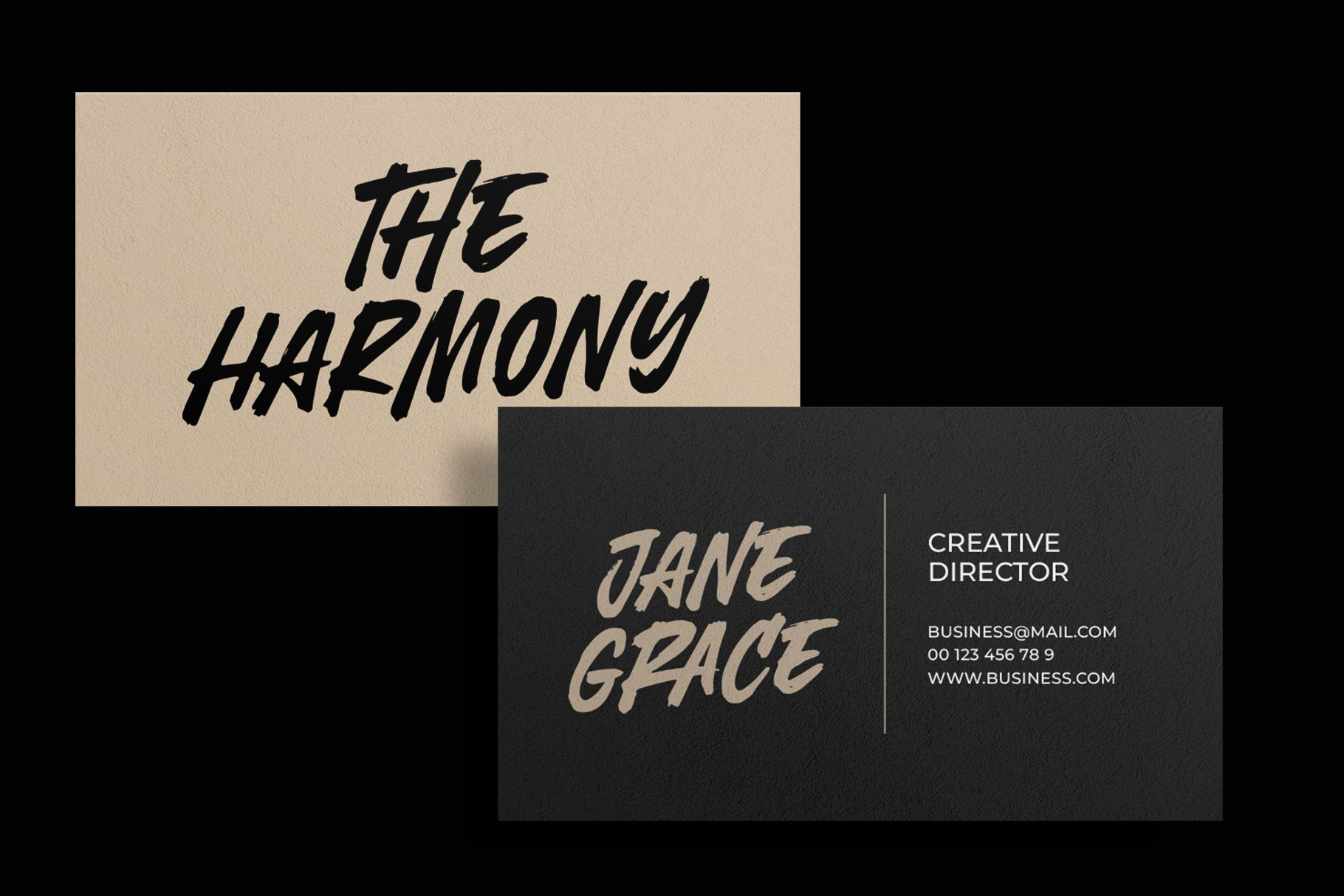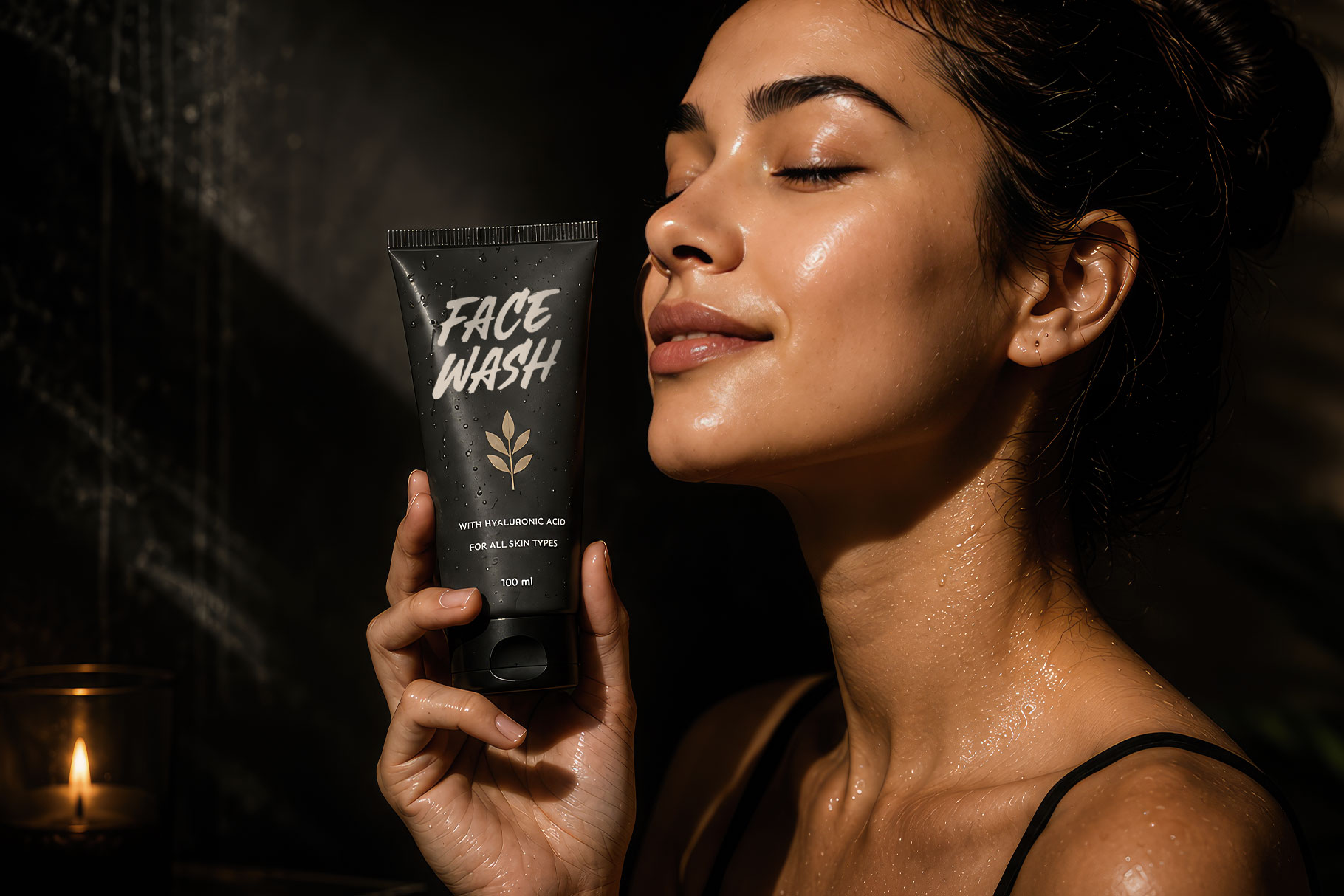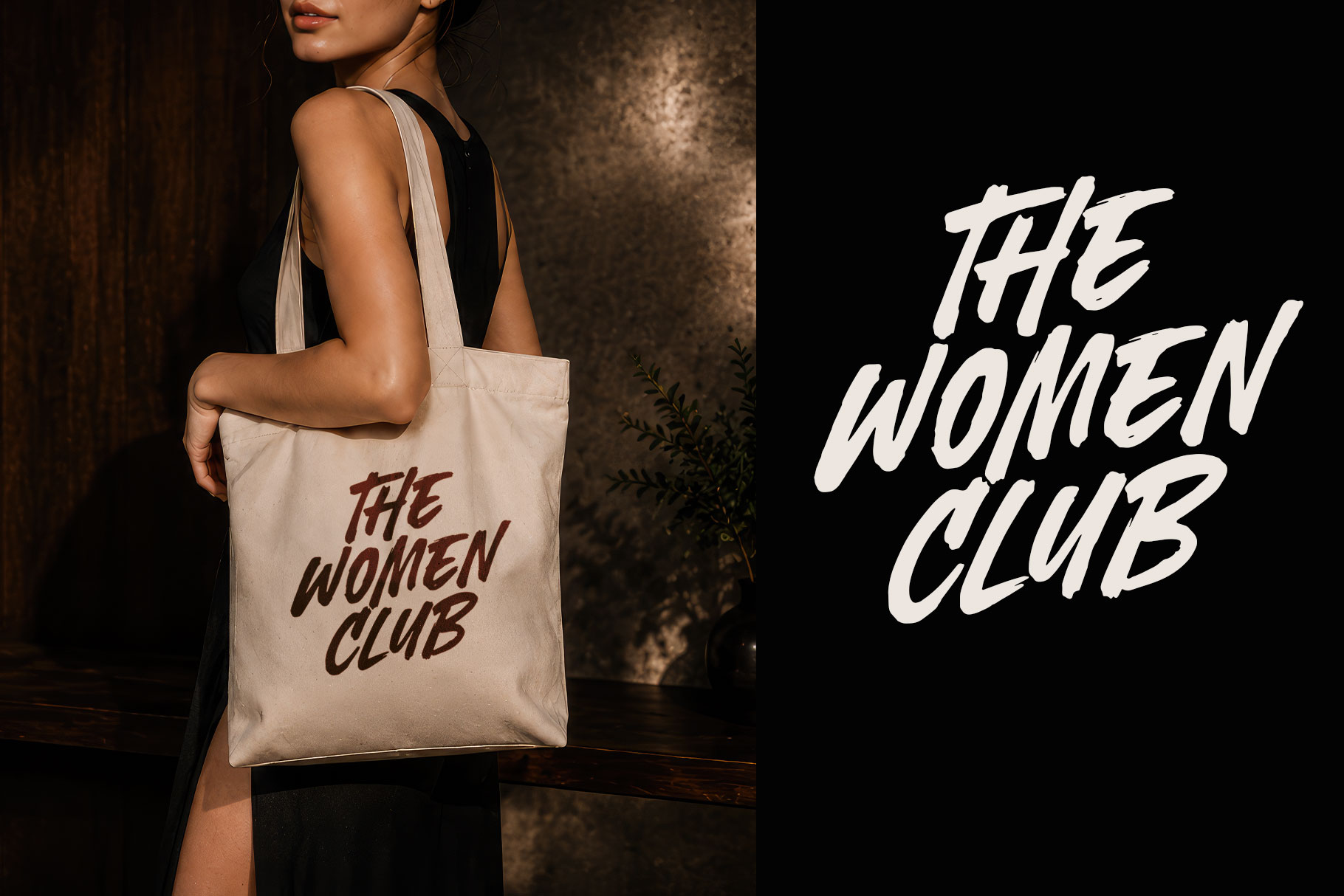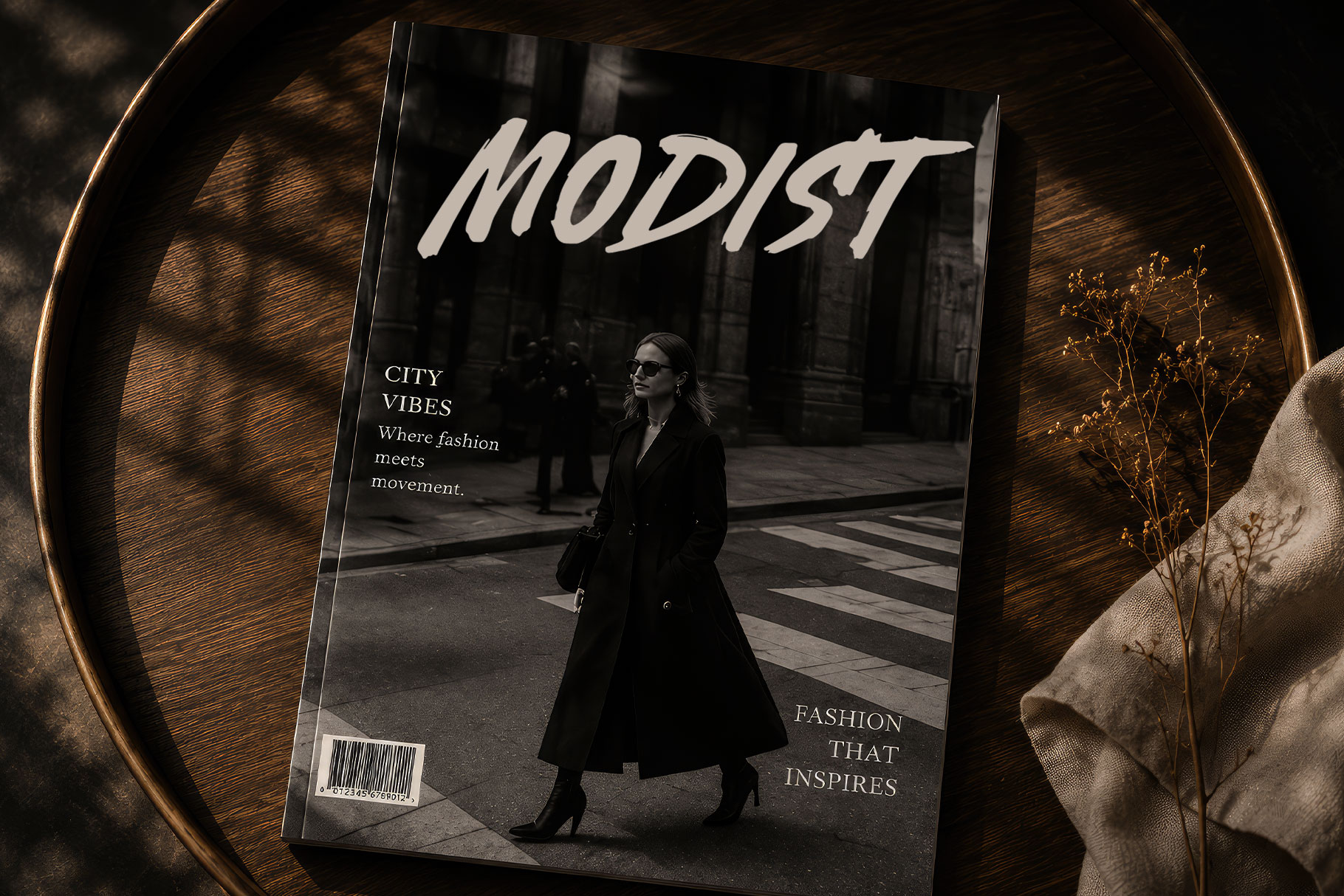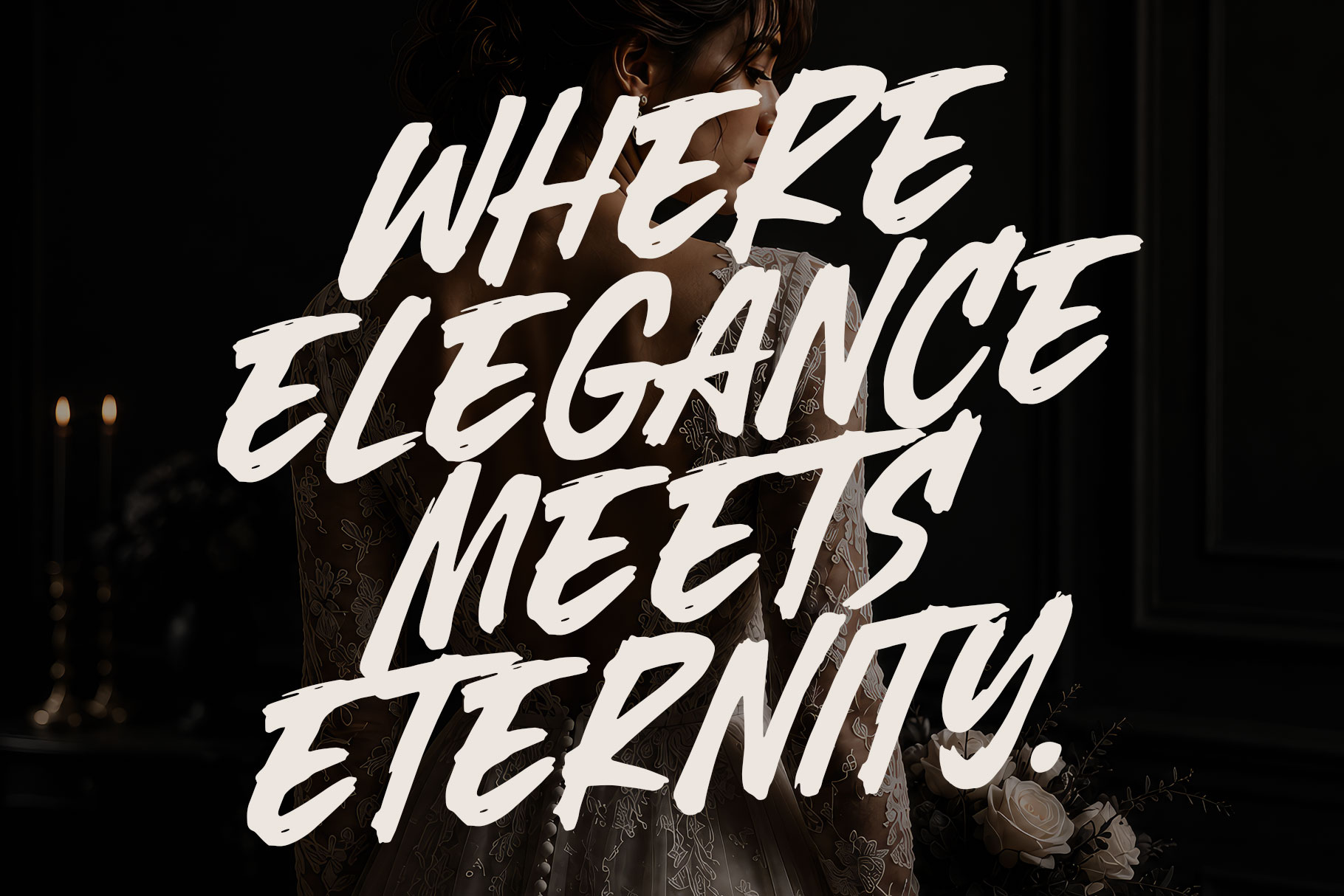
Britania Crown is modern brush font captures the spirit of confidence, movement, and authentic handcrafted expression. Every letter is created with energetic brush strokes that feel spontaneous yet carefully balanced, making the typeface ideal for designs that demand personality and impact.
Britania Crown is a perfectly choice for any creative endeavor, creating, modern, lifestyle design such as logotype, title, cover, branding, invitations, display and magazine, social media posts, advertisements, printed quotes, product packaging, corporate brand, product designs, labels, watermarks, special events and any other project with modern touch.